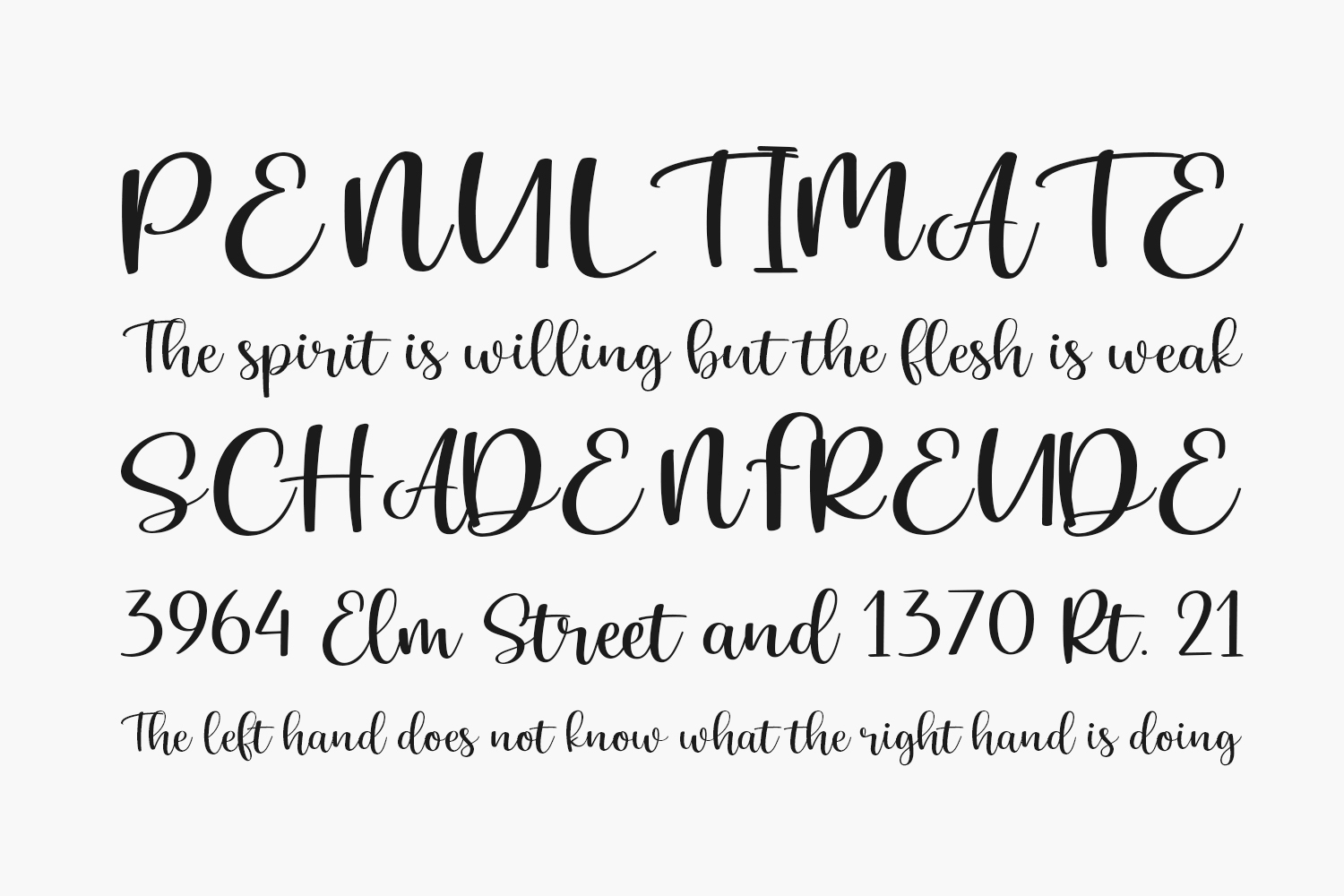
Smoothy Butter Free Font is a stunning and sophisticated font with smooth, buttery curves. This script font exudes a sense of class, elegance, and contemporary style, making it perfect for various applications such as logos, branding, invitations, stationery, wedding designs, social media posts, and much more. With its versatile nature, “Elegant Script” adds a touch of refinement to any project, leaving a lasting impression on your audience. Unlock the beauty of this font and elevate your designs to new heights. Smoothy Butter Free Font is free for personal use only. Please purchase the full version for commercial use.